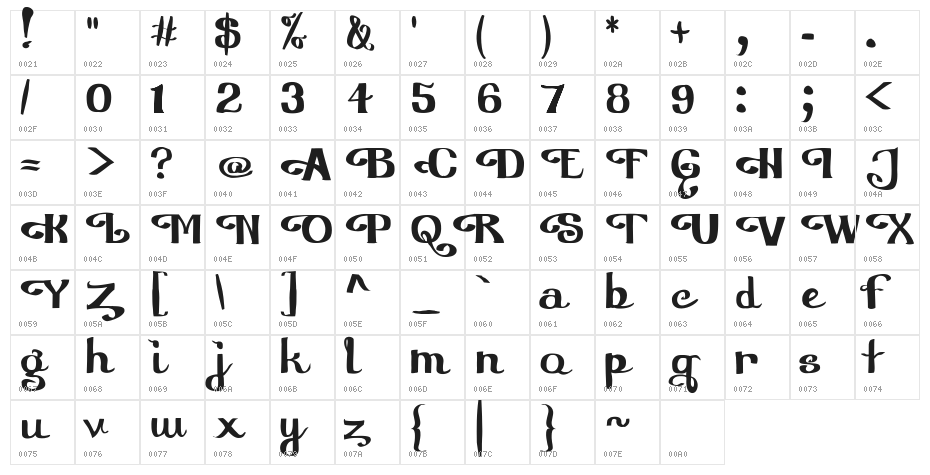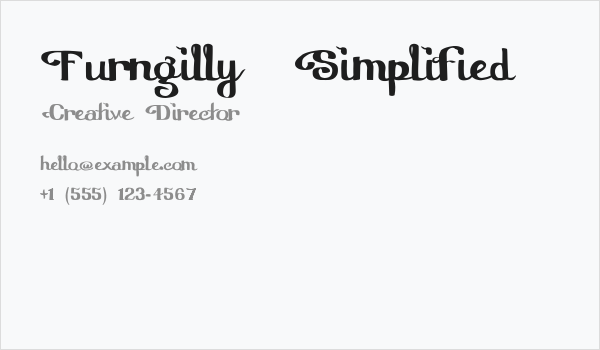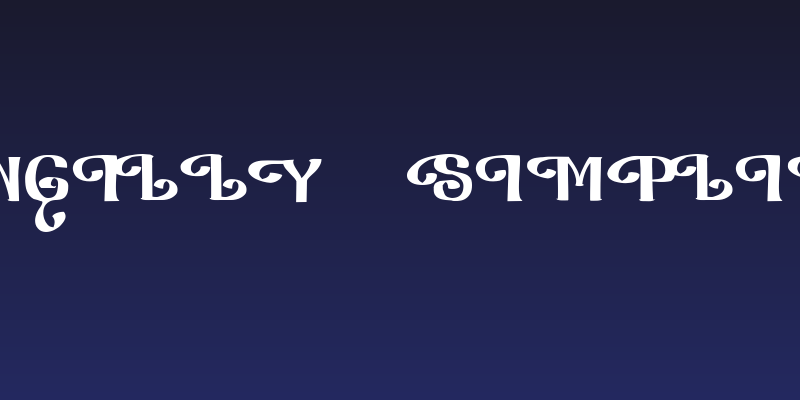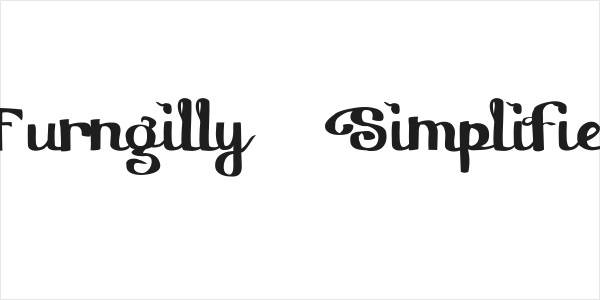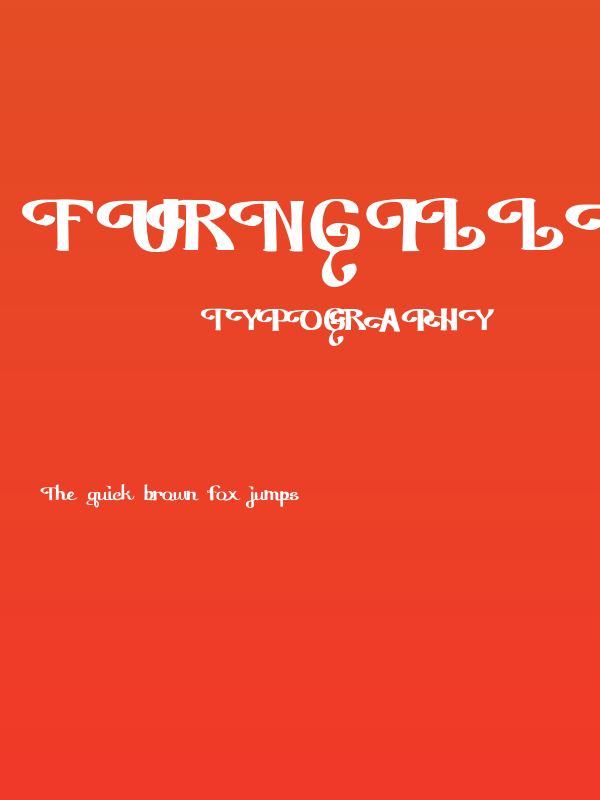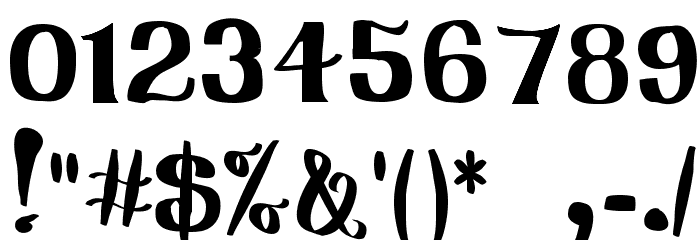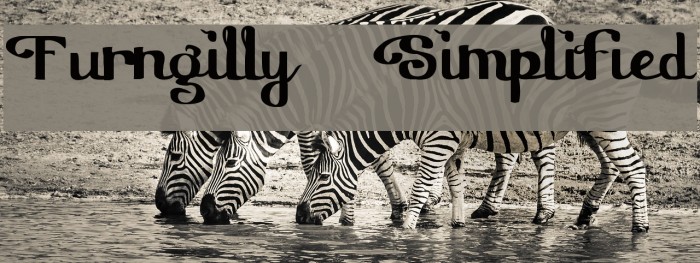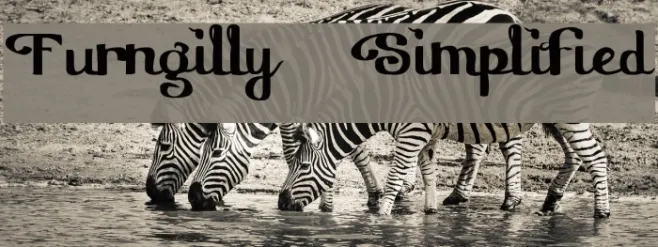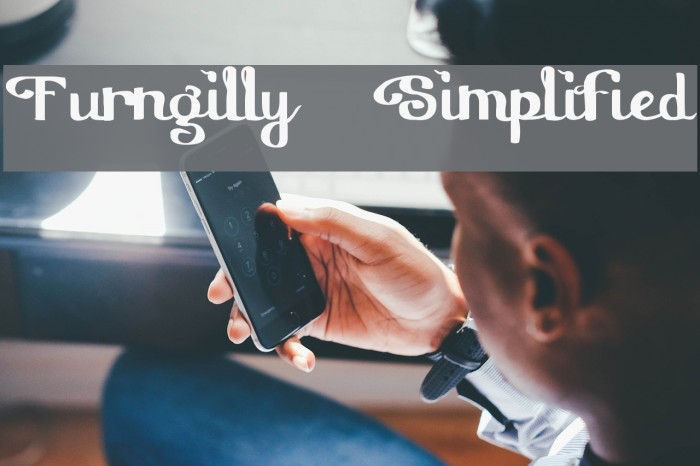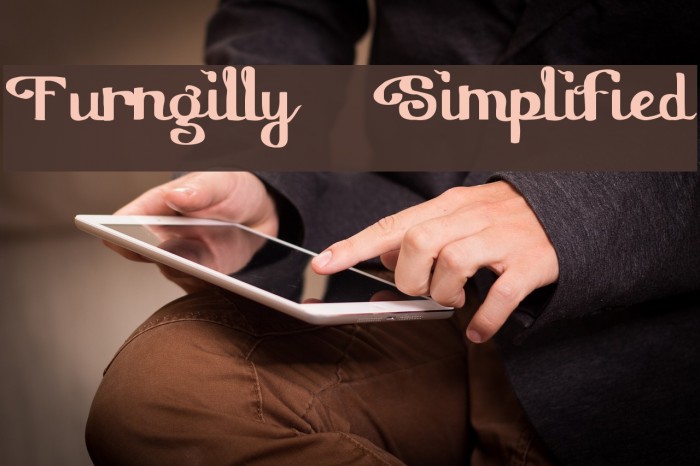
Furngilly Simplified Font
Furngilly Simplified Description
This font features a bold and decorative style with a whimsical flair. The uppercase letters are characterized by intricate curls and loops, giving them a playful yet elegant appearance. The lowercase letters maintain a consistent boldness, with unique flourishes that add to the font's charm. Numbers are equally bold and maintain the decorative theme, making them stand out. Special characters are designed with the same attention to detail, ensuring a cohesive look across all elements. This font is perfect for projects that require a touch of creativity and elegance.
| Proposed Projects | Ideal for invitations, posters, branding, and any project needing a creative and elegant touch. |